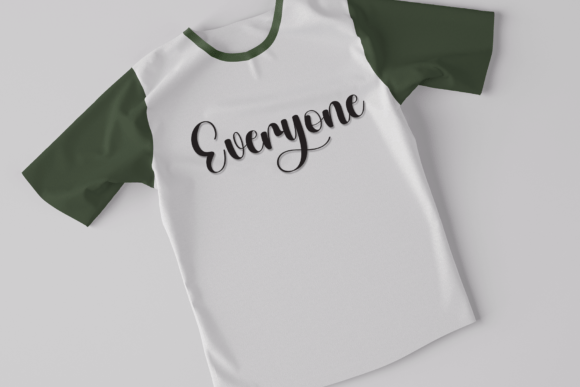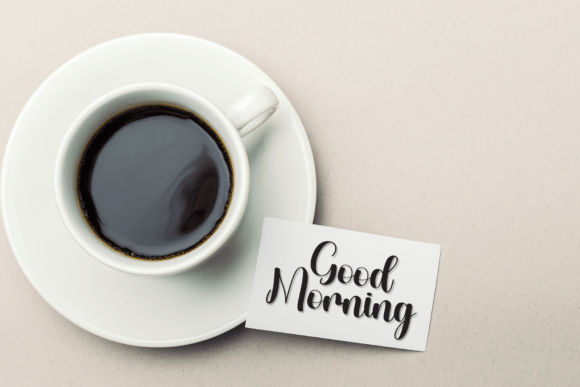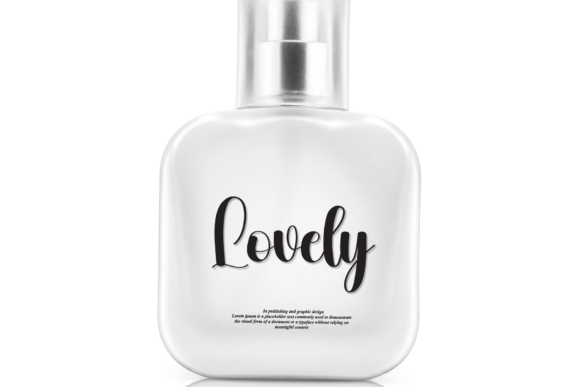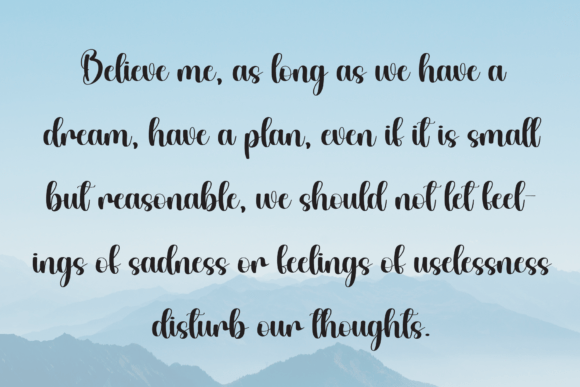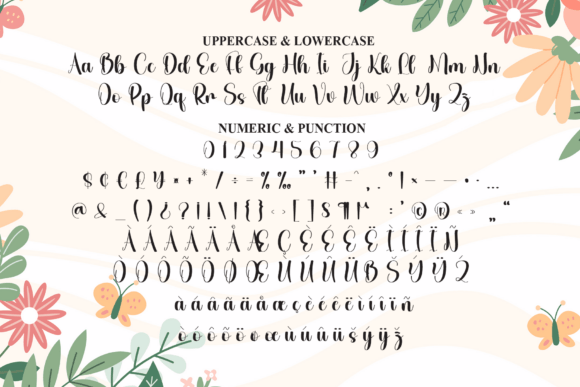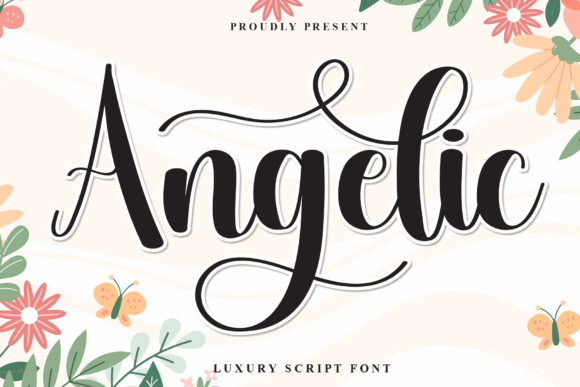
Introducing Angelic Font: A Charmingly Sweet Handwritten Display Font
Are you tired of using the same old fonts for your designs? Do you want to add a touch of whimsy and playfulness to your projects? Look no further than Angelic Font, a charmingly sweet handwritten display font that exudes a warm, friendly vibe. This high-impact font is perfect for adding a dash of enchantment and a dollop of fun to your designs, making it ideal for projects such as wedding invitations, greeting cards, and other creative endeavors.
What Makes Angelic Font So Special?
Angelic Font is overflowing with idyllic charm, making it the perfect choice for designers and crafters who want to breathe life into their projects. This engaging display font has a unique sophistication that sets it apart from other fonts on the market. With its playful and exuberant feel, Angelic Font is sure to transform your designs into something delightfully appealing and entertaining.
Angelic Font is perfect for a wide range of projects, including:
Why Choose Angelic Font?
There are many reasons why Angelic Font stands out from the crowd. Here are just a few:
- Unique and eye-catching: Angelic Font has a one-of-a-kind look that’s sure to grab attention and make your designs stand out.
- Playful and fun: This font has a lighthearted and playful feel that’s perfect for projects where you want to add a touch of whimsy.
- High-impact: Angelic Font is designed to make a statement, making it perfect for headlines, titles, and other high-impact design elements.
- Easy to read: Despite its playful feel, Angelic Font is easy to read and understand, making it perfect for body text and other longer-form content.
Tips for Using Angelic Font
Here are a few tips for getting the most out of Angelic Font:
- Use it as a headline font: Angelic Font is perfect for headlines and titles, where its playful and eye-catching feel can really shine.
- Pair it with a neutral font: For body text and other longer-form content, pair Angelic Font with a neutral font to create a nice contrast.
- Experiment with colors: Angelic Font looks great in a variety of colors, so don’t be afraid to experiment and find the perfect hue for your project.
- Add some flair: Consider adding some flair to your design with graphics, illustrations, or other decorative elements to really make it pop.
Angelic Font is a charmingly sweet handwritten display font that’s perfect for designers and crafters who want to add a touch of whimsy and playfulness to their projects. With its unique sophistication and high-impact feel, this font is sure to transform your designs into something exuberantly entertaining and delightfully appealing. So why wait? Dive into the world of Angelic Font today and discover a whole new world of creative possibilities!